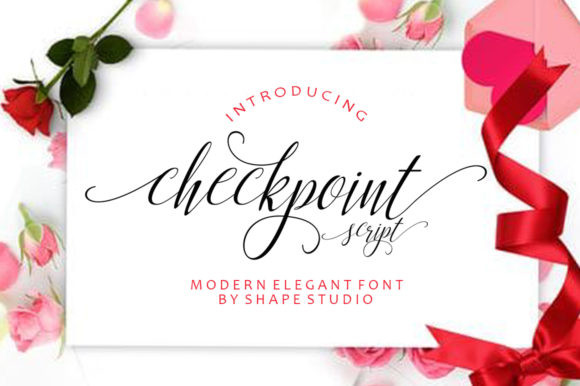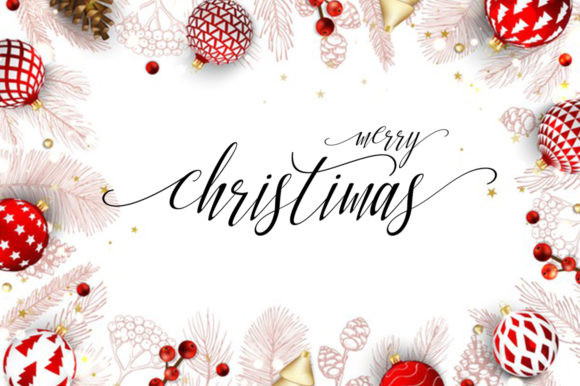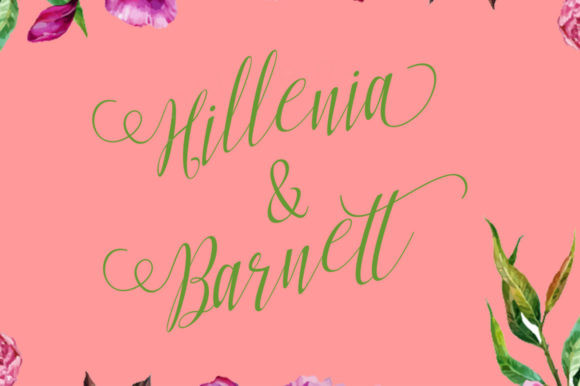
Checkpoint Font
Checkpoint is a modern calligraphy script font with an irregular baseline which makes it both trendy and feminine. Checkpoint Script looks lovely on wedding invitations, thank you cards, quotes, greeting cards, logos, business cards, and more. Including initial and terminal letters, alternates, ligatures, and multiple language support.